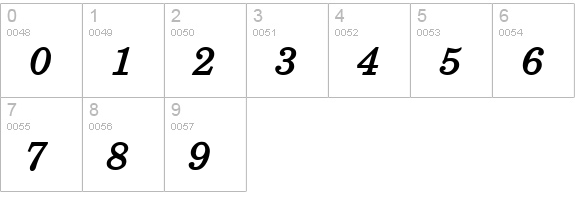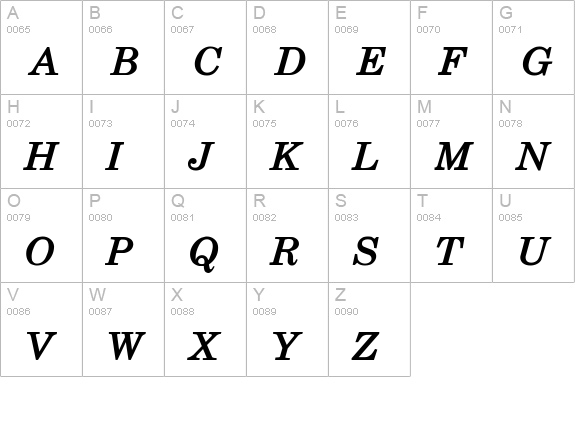
Schoolbook Bold Italic Font Details
Schoolbook Bold Italic is a strong, high-contrast, italic variant in the Schoolbook typeface family \xE2\x80\x94 well suited to headlines, attention-grabbing titles, and strong calls-to-action.
Introducing Schoolbook Bold Italic, a captivating and versatile font that effortlessly blends elegance with a touch of playfulness. This font is the perfect choice for those seeking a bold and dynamic typographic statement. With its distinctive bold strokes and slanted italics, Schoolbook Bold Italic exudes confidence and sophistication. Its refined design showcases a harmonious combination of strong lines and graceful curves, resulting in a visually appealing and engaging typeface. Ideal for a wide range of creative projects, Schoolbook Bold Italic is especially well-suited for headlines, titles, and branding materials. Its commanding presence on the page demands attention, while its subtle italicized slant adds a subtle touch of distinction. One of the most remarkable aspects of Schoolbook Bold Italic is that it is free. Yes, you read that right! This remarkable font is freely available to download at FontsMarket.com. Now, you can elevate your design projects without breaking the bank. Whether you are a graphic designer, a web developer, or a passionate creative, Schoolbook Bold Italic will undoubtedly become an invaluable asset in your font library. Its versatility and boldness will help your designs stand out from the crowd and make a lasting impression. So, why wait? Don't miss out on the opportunity to enhance your projects and explore the endless possibilities that Schoolbook Bold Italic has to offer. Visit FontsMarket.com today and download this remarkable font for free. Unleash your creativity and let Schoolbook Bold Italic be your guiding companion on your design journey.